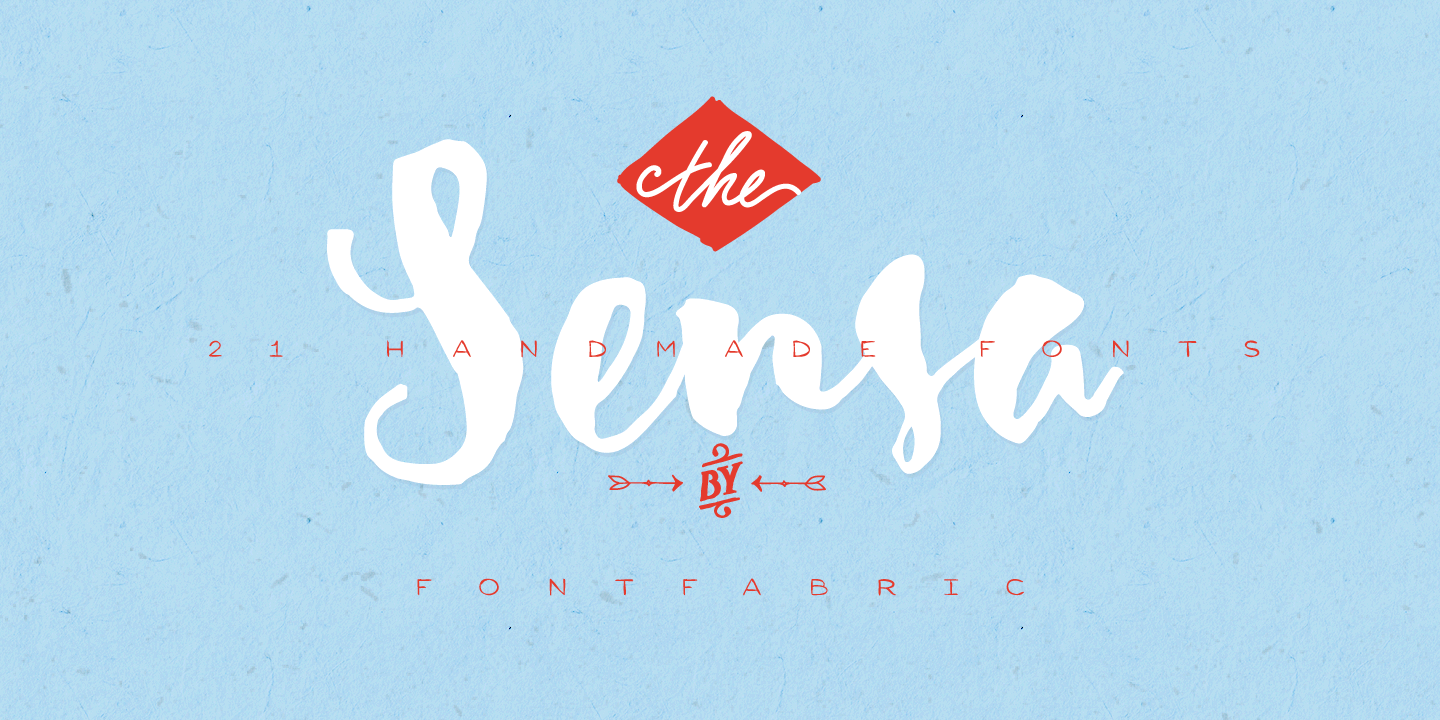
Sensa Font is ideal for numerous design applications including editorial layouts, book covers, magazine headlines, website typography, brand identity systems, packaging design, poster creation, and digital advertising campaigns. This sophisticated typeface works exceptionally well in both body text and display applications.
What makes Sensa Font exciting is its unique blend of classic elegance and contemporary functionality. The font features carefully crafted letterforms with subtle personality traits that enhance readability while maintaining visual interest. Its balanced proportions and refined details create a distinctive character that stands out in crowded design environments.
The Sensa Font family encompasses multiple weights and styles including Light, Regular, Medium, Bold, and Black variations, each available in both upright and italic versions. This comprehensive range provides designers with extensive flexibility for creating cohesive typographic hierarchies across different design projects.
This versatile typeface offers exceptional performance across various media formats and applications. Professional designers appreciate Sensa Font Free Download for its reliability in both digital and print environments. The font's optimized spacing and carefully adjusted metrics ensure consistent results whether used in large headlines or extended reading text. Its contemporary aesthetic makes it perfect for modern branding projects, editorial design, and corporate communications that require a sophisticated yet approachable typographic solution.